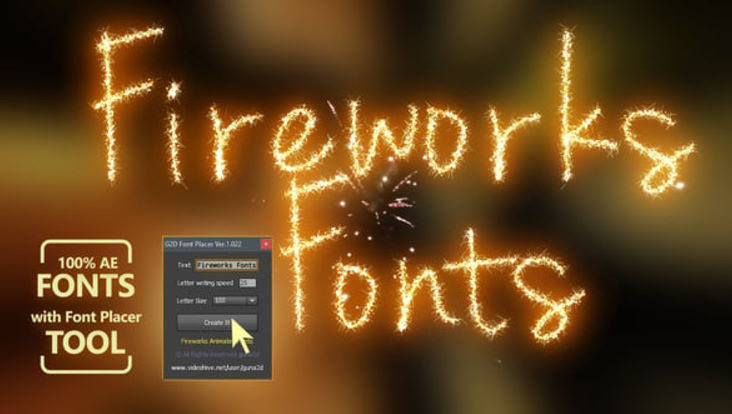
Add beautiful fireworks writing feel to your titles or any text content. Comes with easy to use character placer script, fully customizable automated animations. No need to drag and drop characters. Just enter your text, the tool does everything for you.
- Includes very easy to use character Placer Tool